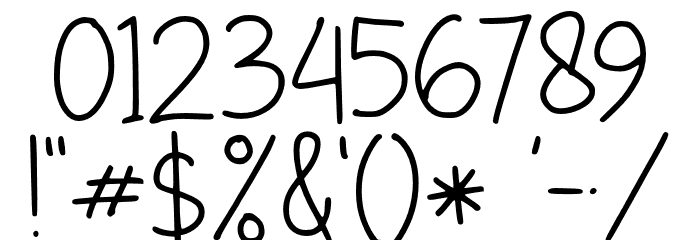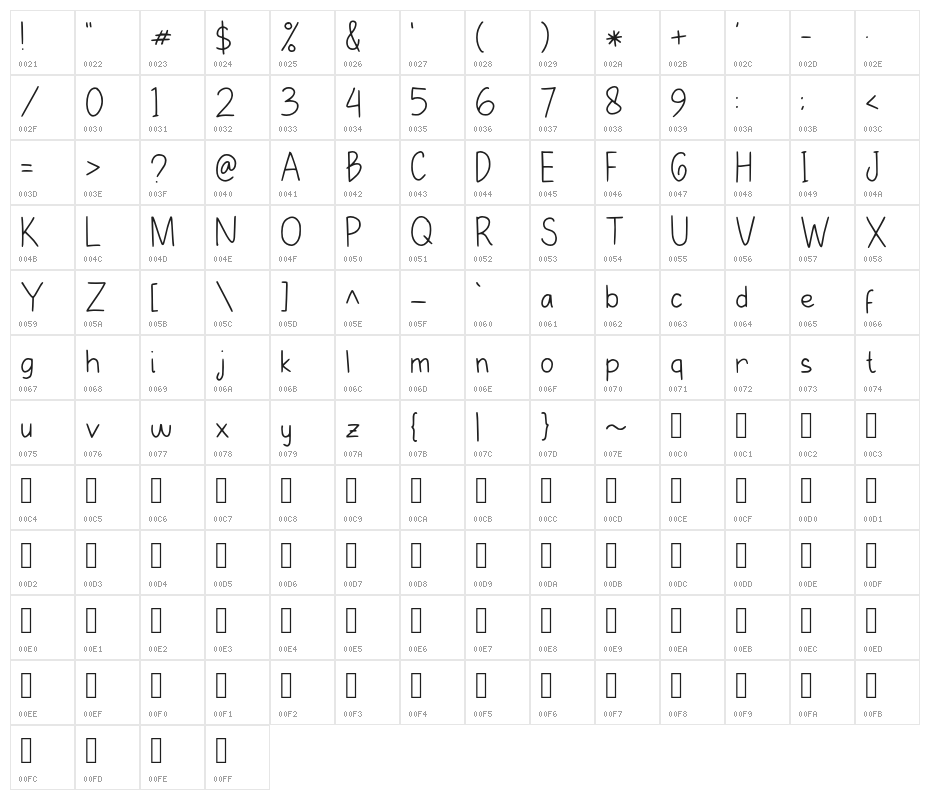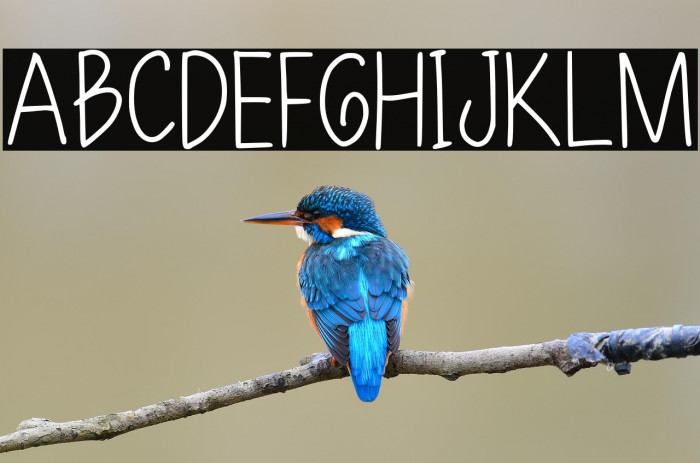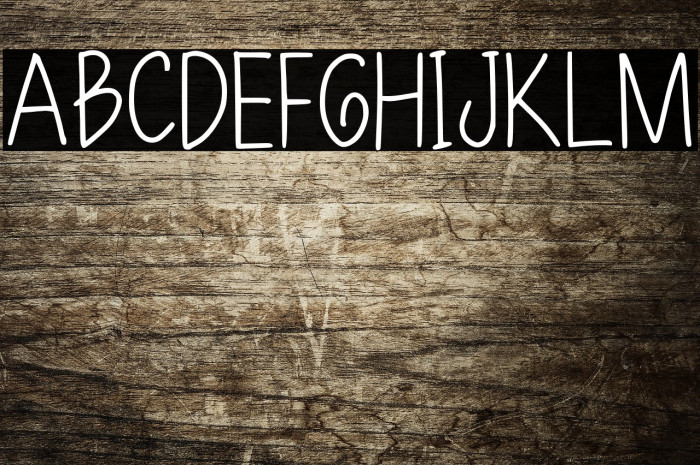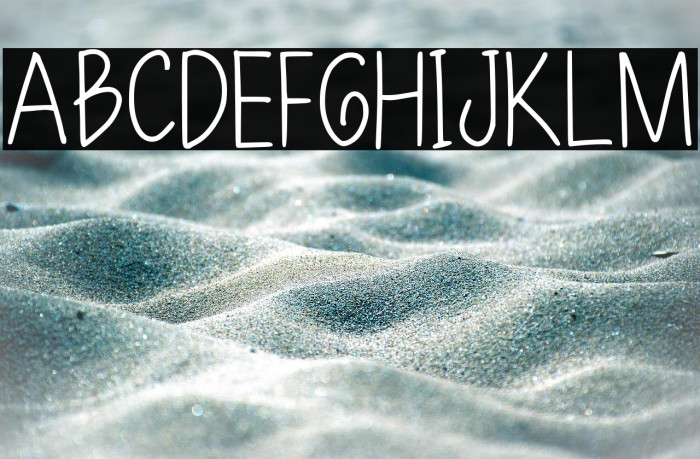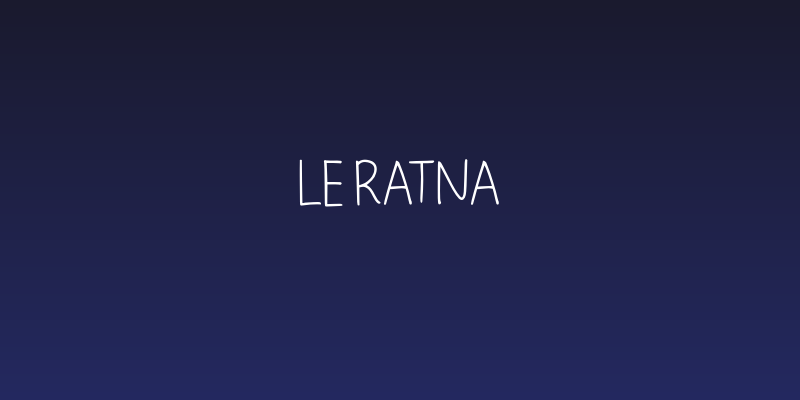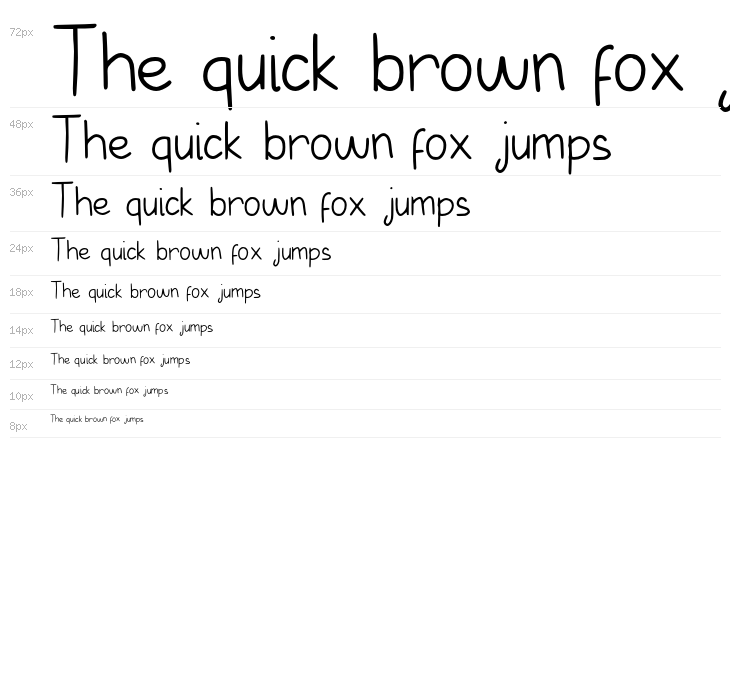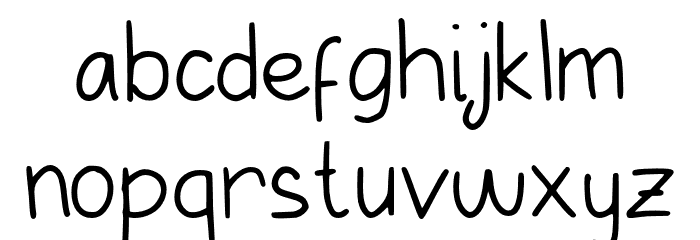
Le Ratna Font
Le Ratna Description
This font features a playful and whimsical handwritten style, characterized by its irregular strokes and casual appearance. The letters have a slightly uneven baseline, adding to the informal and friendly feel. The uppercase and lowercase letters are distinct, with a noticeable difference in size and shape, enhancing the font's charm. The numerals and special characters maintain the same playful aesthetic, making it versatile for various uses. The overall design is approachable and engaging, suitable for projects that require a personal touch.
| Overall Style | Casual and playful |
| Use Case | Headlines, Logos, Informal text |
| Proposed Projects | Ideal for greeting cards, children's books, casual invitations, and playful branding. |